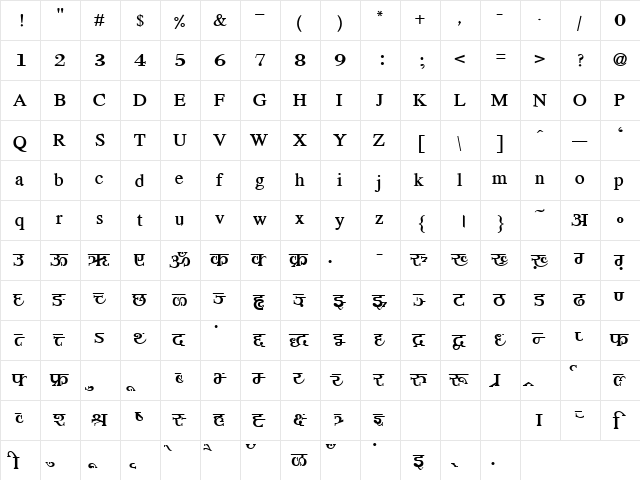
AkrutiDev_BAditi Bold
Design Context for AkrutiDev_BAditi Typeface
AkrutiDev_BAditi is a composed and adaptable typeface that performs quietly and consistently across a wide range of design contexts. Its bold stroke weight gives it real presence on the page.